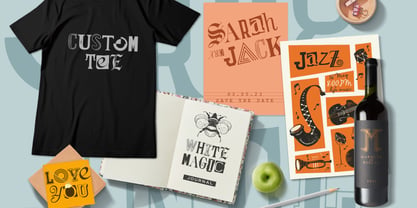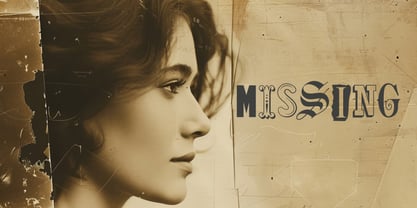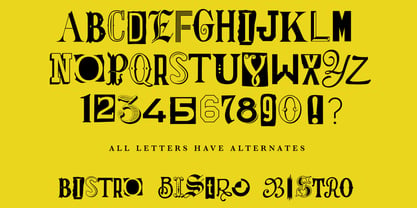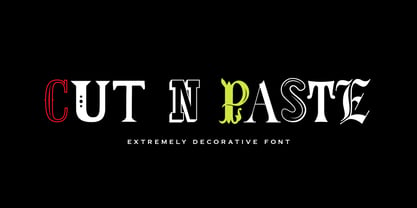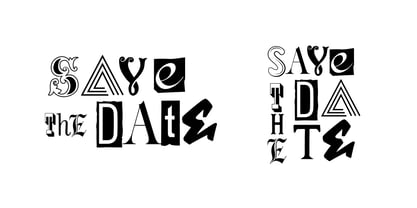
Cutnpaste
The Cutnpaste Font Family was designed by Aleksey Ivanov and published by vatesdesign. Cutnpaste contains 1 styles. More about this family
A font where every letter is different. it's a one of a kind all-caps including figures and some basic punctuation marks. Every letter has at least 1 alternative shape. It's great for kids' books illustrations/covers, typographical posters, and other design works focused on decorative typography.